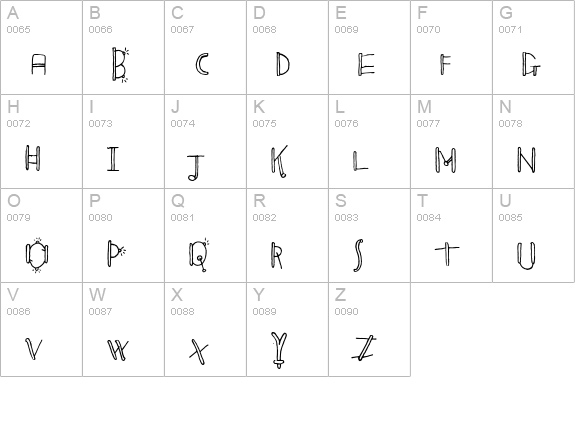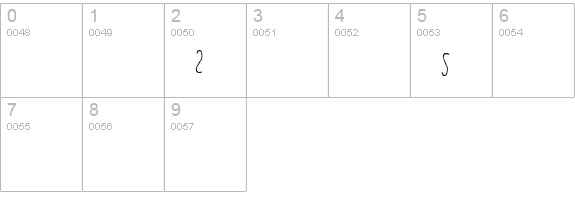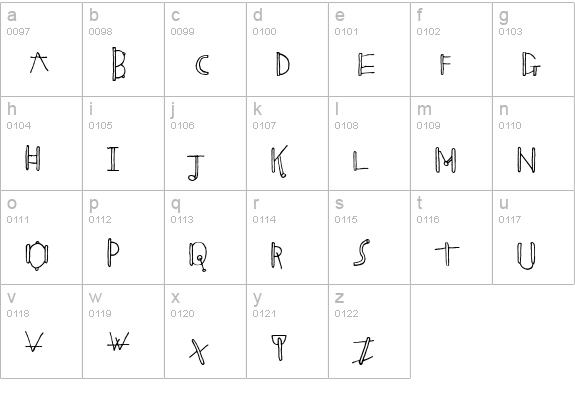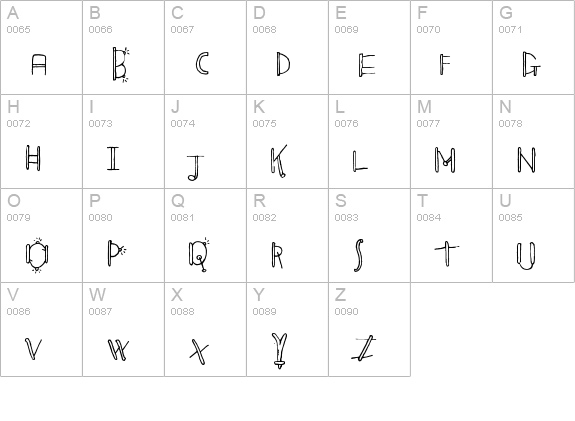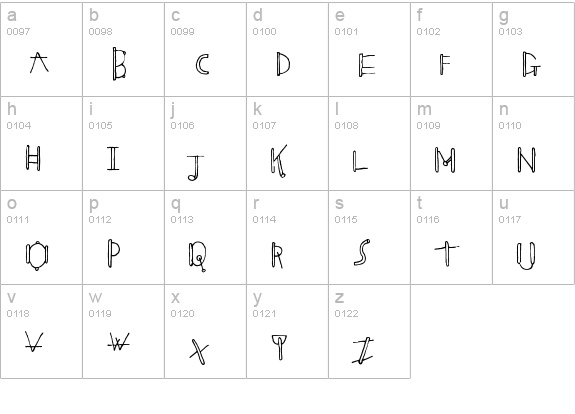
Blinkers font is a modern and stylish typeface that exudes a sense of energy and sophistication. Its sleek lines and sharp angles make it perfect for adding a contemporary touch to any design project. With its eye-catching design, Blinkers font is sure to grab attention and make a bold statement. The best part about Blinkers font is that it is completely free to download at FontsMarket.com. This means you can easily access this stunning font and use it in your creative projects without any cost. Whether you're designing a website, creating a logo, or working on a branding project, Blinkers font is a versatile choice that will elevate your work to the next level. Don't miss out on the opportunity to enhance your designs with the stylish and modern Blinkers font. Download it for free today at FontsMarket.com and start incorporating this sleek typeface into your projects for a truly standout look.